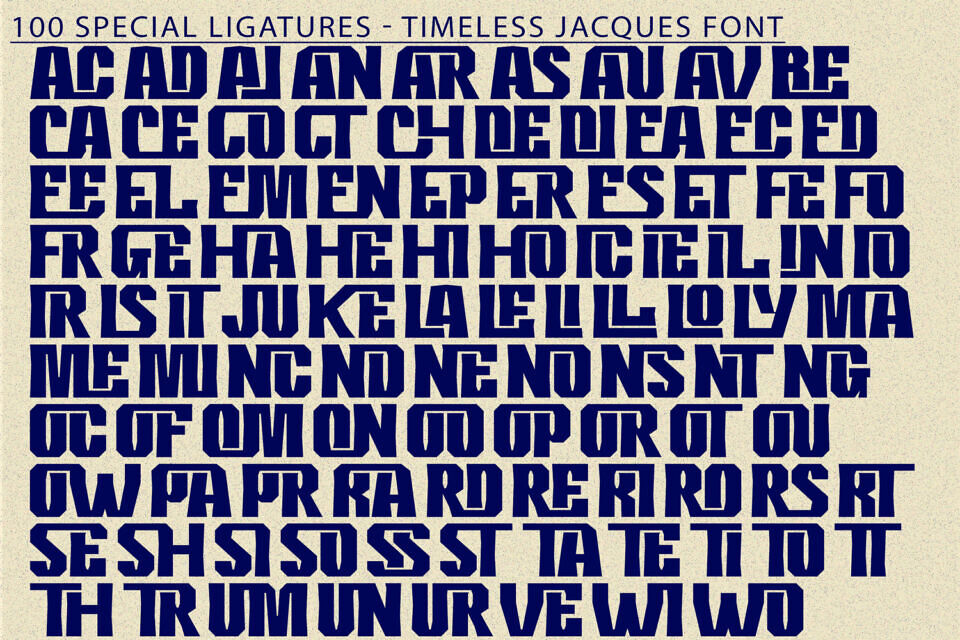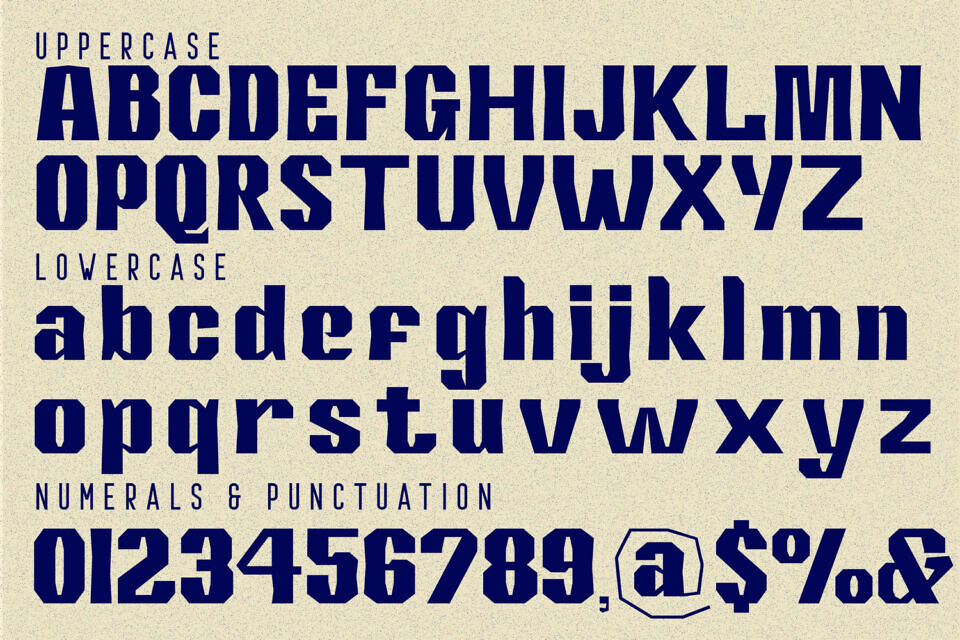
Timeless Jacques Font
Timeless Jacques is a powerful Geometric Retro Futuristic Sans-Serif Display Font that captures both the strength of industrial design and the timeless appeal of vintage typography. With its thick strokes, angular shapes, and distinctive character cuts, this font brings a bold, confident tone to any creative project.